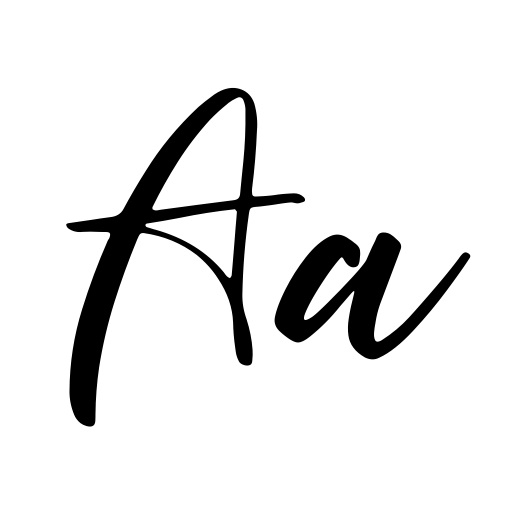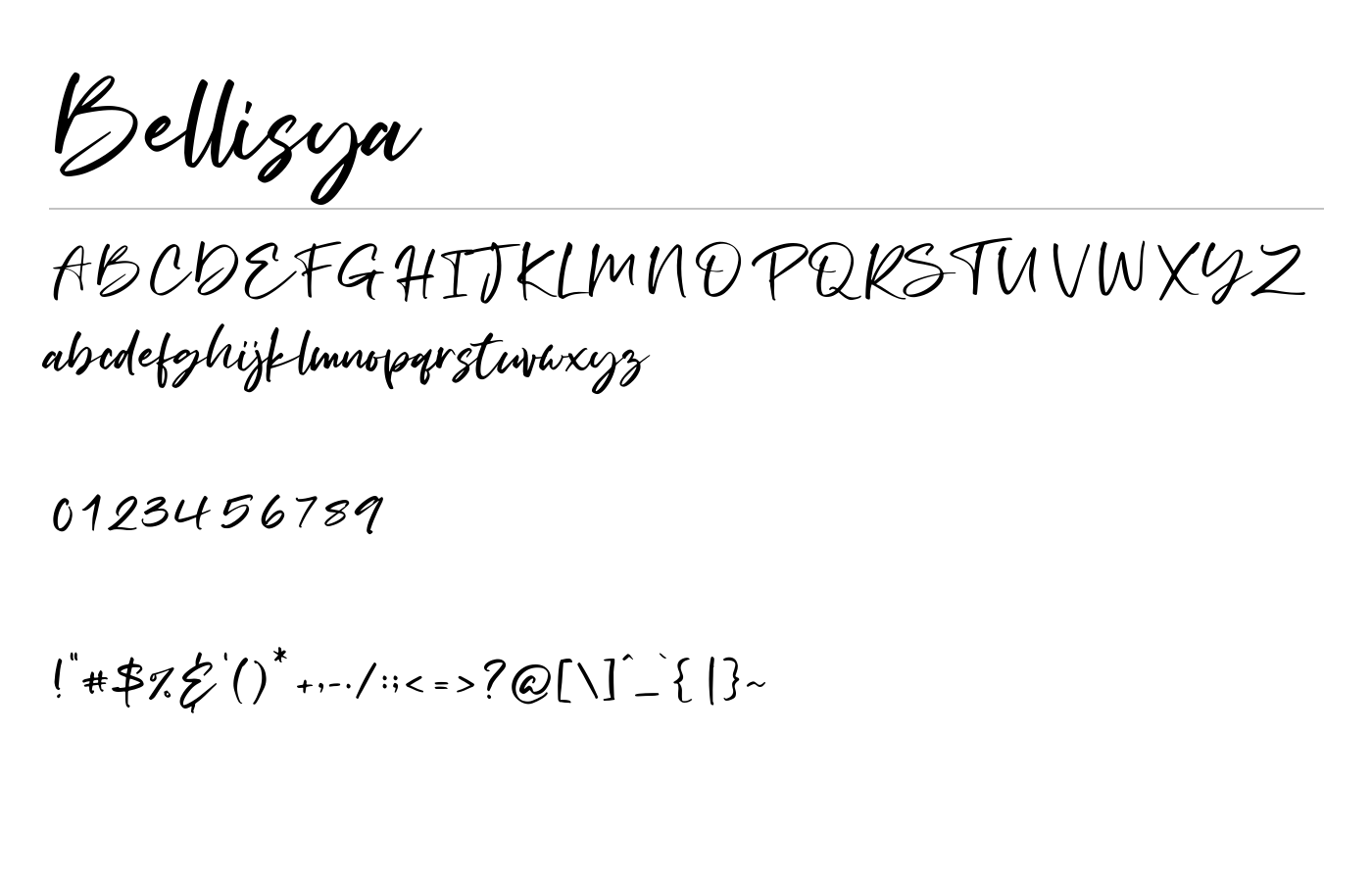
Bellisya is a stylish handwritten script font that combines a casual, flowing elegance with modern readability. Its light to medium weight strokes and slightly varied letterforms give it a natural, personal touch, making it ideal for creative branding, invitations, and trendy editorial designs. This font adds a warm, approachable vibe while maintaining sophistication, perfect for projects that want to feel both friendly and refined.
Bellisya Font
About Bellisya Font